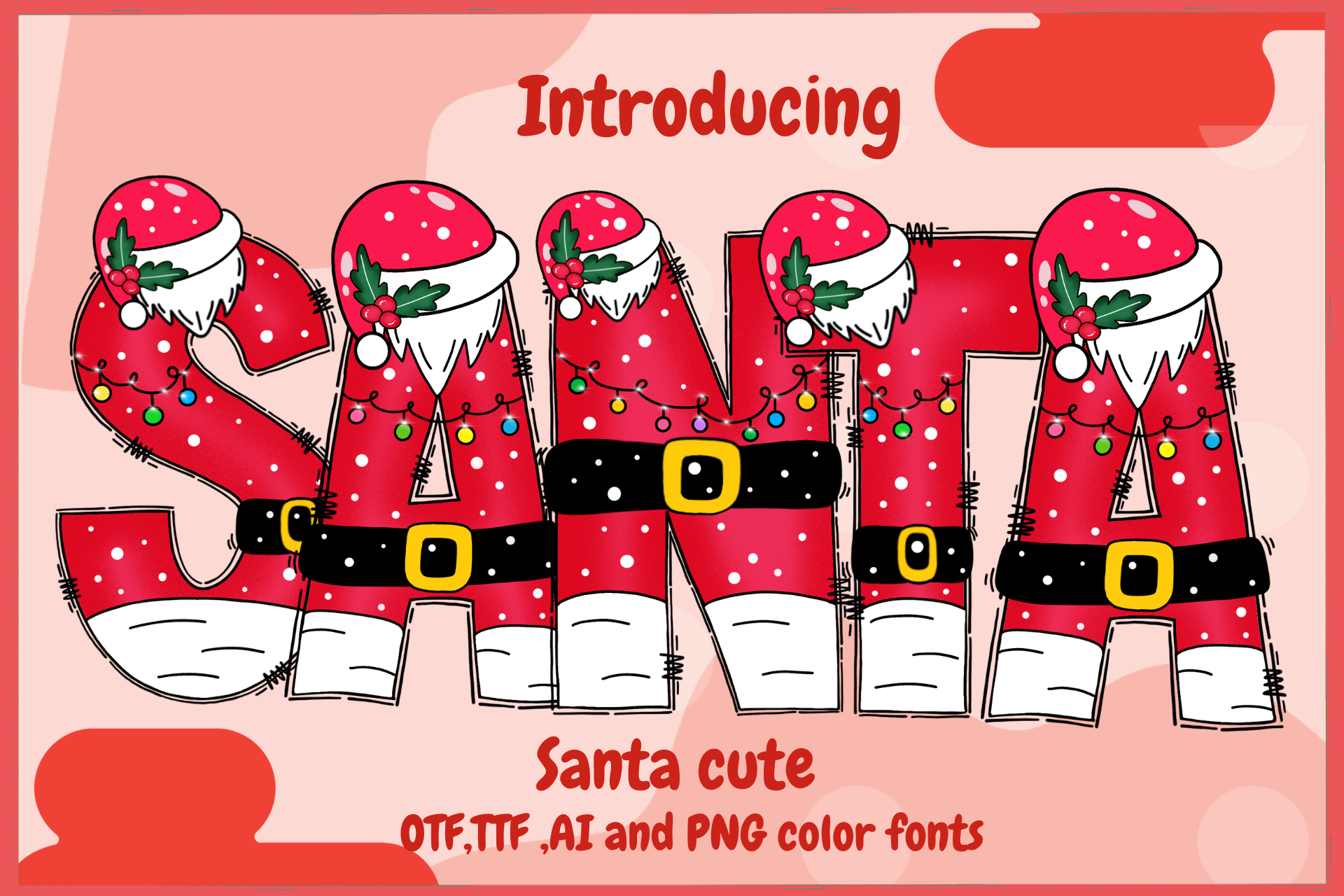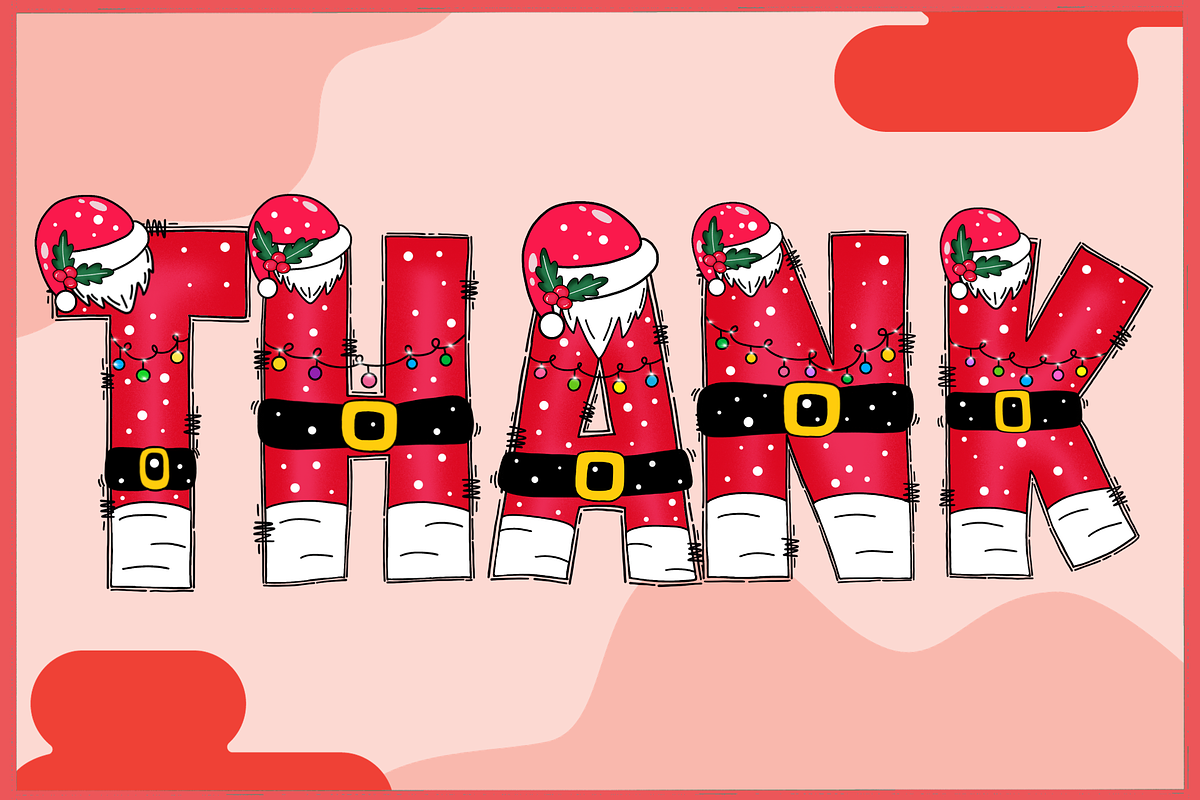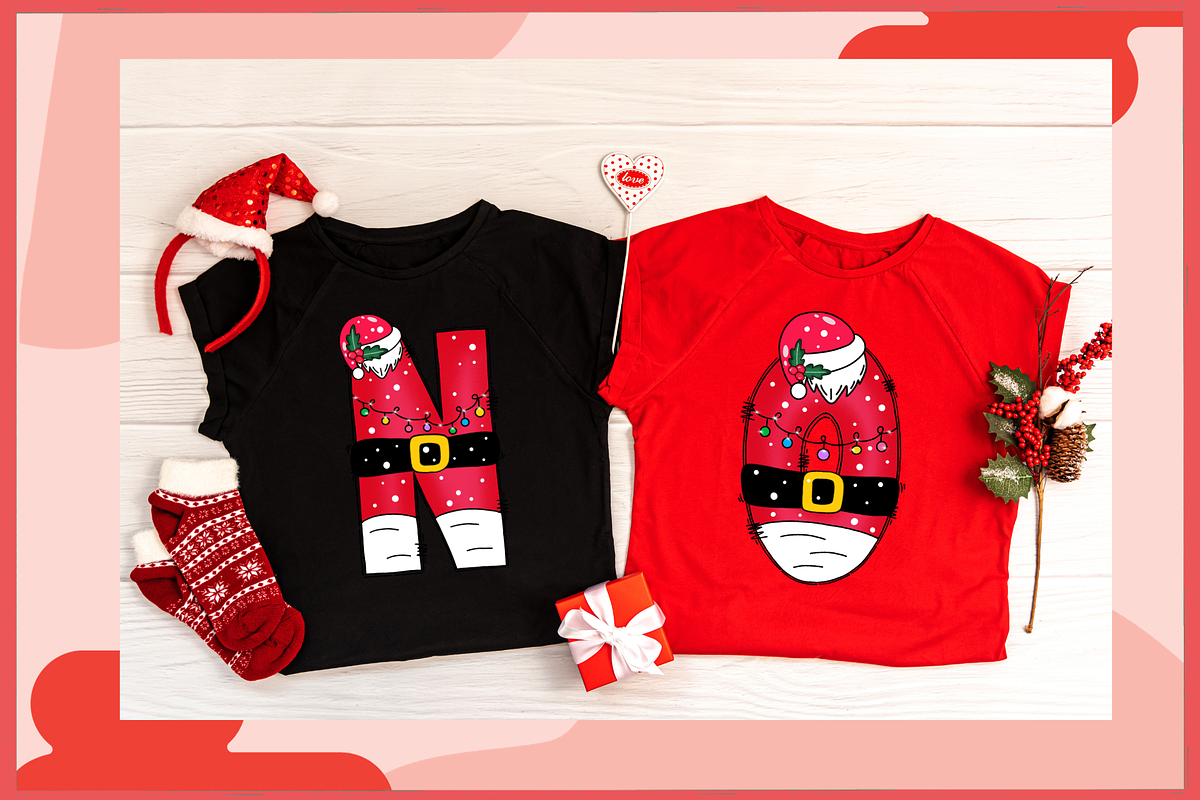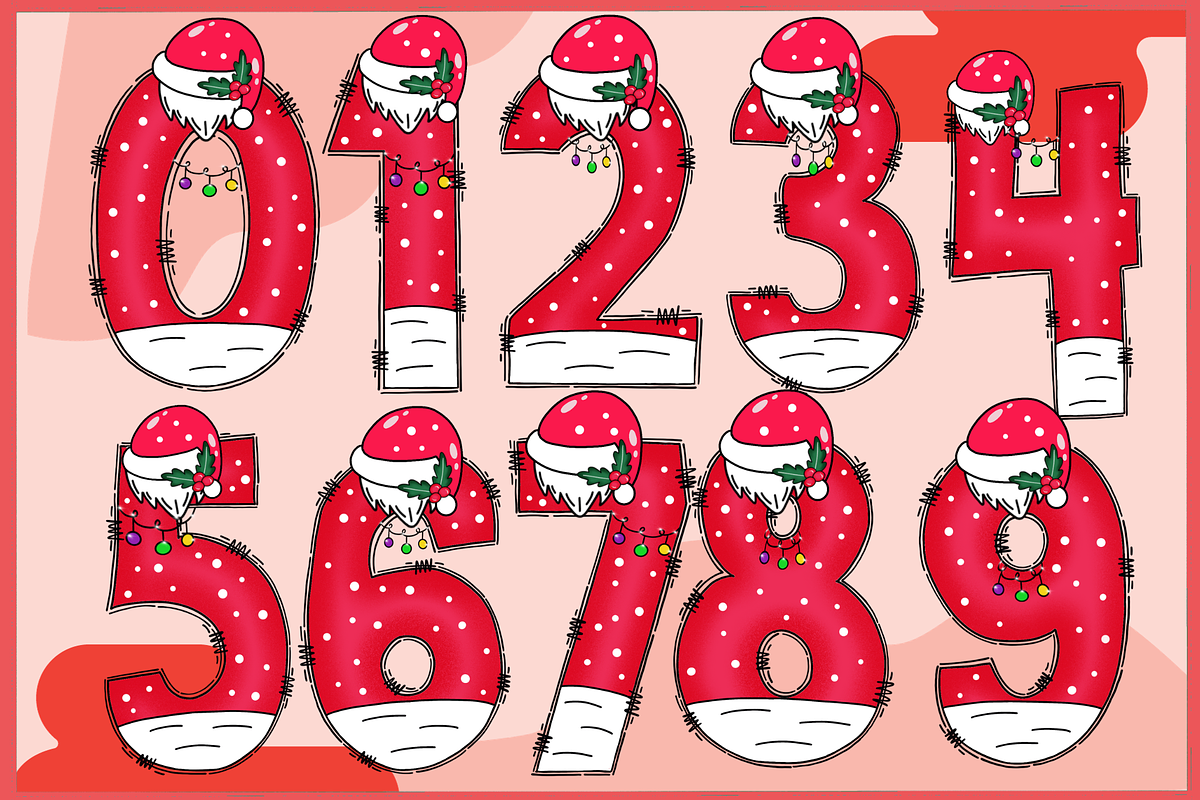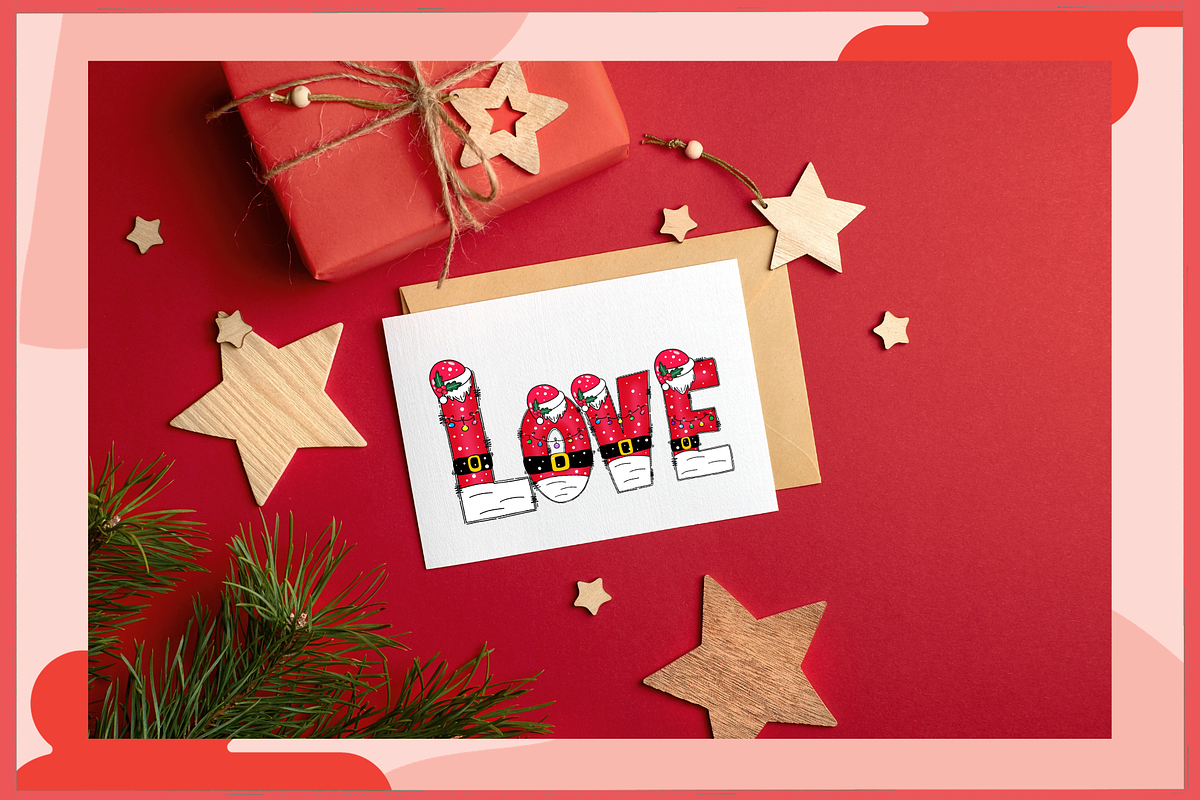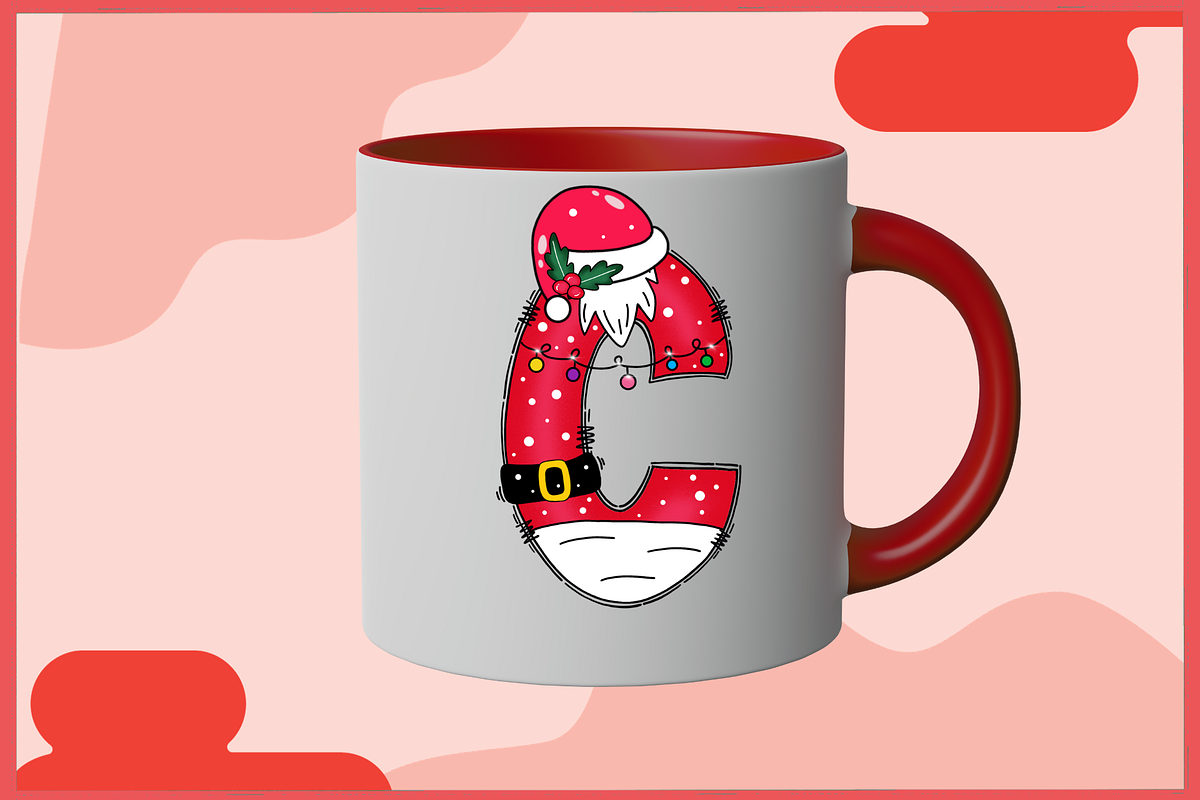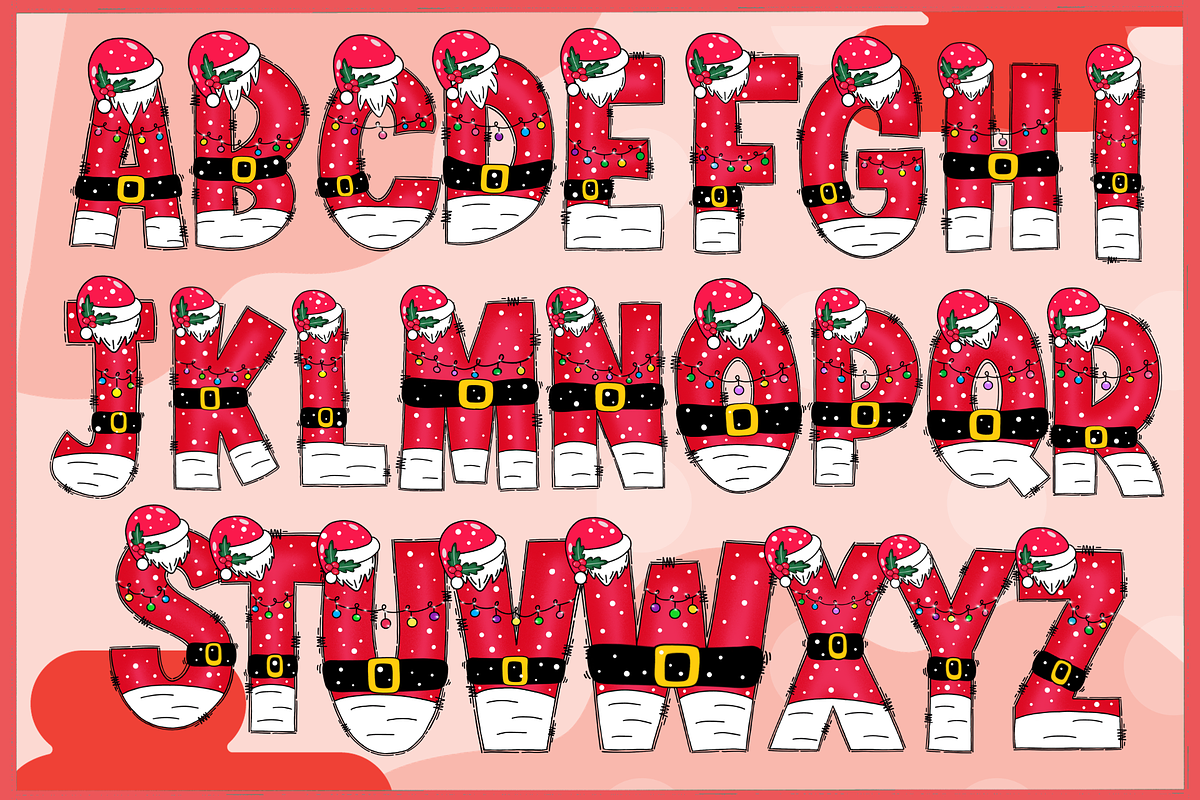
Designed by Usa Suwannahong Owner of It me digital art 2 sales
Santa cute-PNG fonts
Santa cute,Suitable Super Cute Handwriting Front Simple Style Presentation Education Advertising Illustration Multi-purpose Simple Design Applications Suitable Display Fonts Happy Fonts Sticker Joy ,It is a creative, simple design that is suitable for all applications.